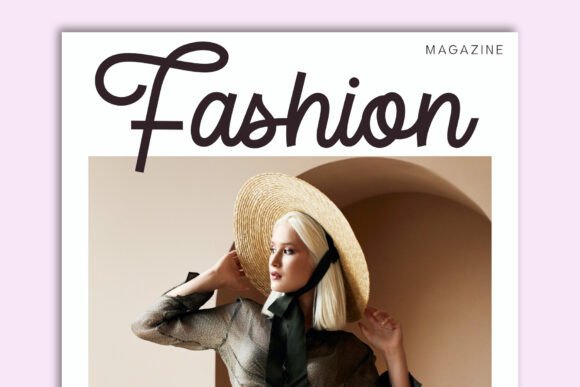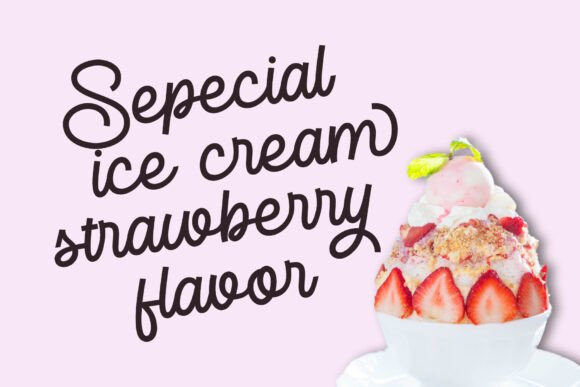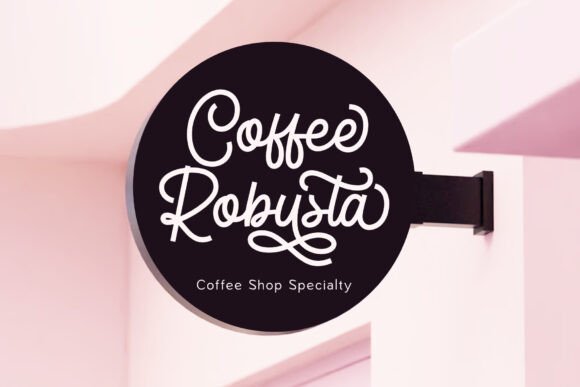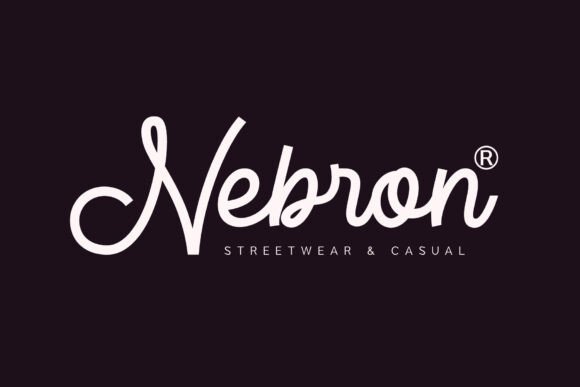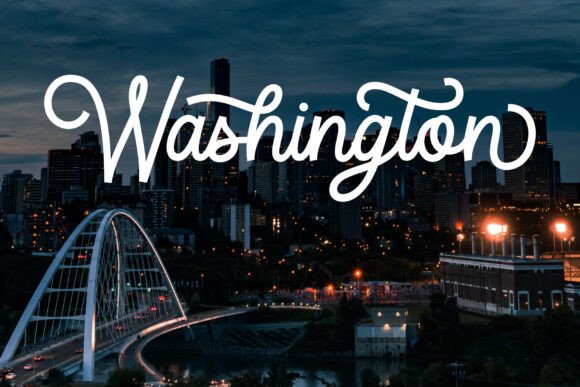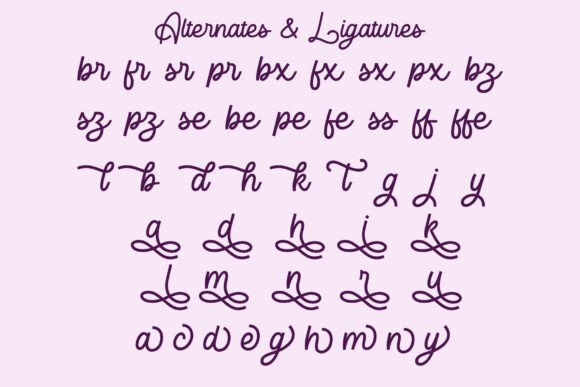
Introduction to Bualsey Font
Remember that moment when you’re brainstorming ideas for a new project, and the perfect font just clicks? For designers, finding that elusive font can make all the difference between a good design and a great one. If you’re on the hunt for a versatile and elegant script font, look no further than Bualsey Font. This stunning font is designed to be highly legible and perfect for a wide range of creative projects.
With its unique, handmade feel, Bualsey Font adds a personal touch to any design, making it an invaluable resource for designers. Whether you’re working on a logo design, branding, clothing design, signage, posters, or wedding invitations, Bualsey Font is sure to impress. Plus, with its high-quality design, you can rest assured that your projects will look professional and polished, even with a transparent background.
Key Features of Bualsey Font
- High-quality font with a unique, creative design perfect for various projects.
- Features a transparent background, allowing for easy customization and integration with other design elements.
- Compatible with a wide range of creative projects, including graphic design, digital art, and web design.
- Designed with a high resolution, making it suitable for print and digital applications.
- Includes a range of characters and glyphs, making it a versatile design resource for various languages and scripts.
Honest Review: Bualsey Font
I recently had the chance to work with the Bualsey Font, and I must say it’s been a great addition to my design resources. This free download is perfect for any creative project that requires a unique touch.
Here are some of the things that I think work well: ✨
- High quality: The font is incredibly detailed and has a lot of character, making it perfect for use in print or digital designs.
- Transparent background: This makes it easy to layer the font over other design elements without any hassle.
However, there are a few limitations that I’ve noticed: ⚠️
- Limited character set: While the font is great for use in headings and titles, it’s not ideal for body text due to the limited number of characters available.
Overall, I’m really impressed with the Bualsey Font. It’s a great design resource that’s perfect for adding a touch of personality to any creative project. I would definitely recommend it to anyone looking for a unique and high-quality font.
Tips for Getting the Most Out of Bualsey Font
For best results, use Bualsey Font in conjunction with other design resources to create a cohesive look. Experiment with different font sizes and styles to enhance your creative project.
Bualsey Font is ideal for various creative projects, including logos, business cards, and infographics. Its high-quality design makes it a popular choice for designers and artists.
Alternatives to Bualsey Font
Great Vibes Font is a modern, elegant script font ideal for creative projects that require a touch of sophistication. It’s free to download and offers a high-quality design suitable for business cards, wedding invitations, and other formal events.
When to use: Great Vibes Font is perfect for projects that demand a sense of refinement and luxury. It’s a great alternative to Bualsey Font for designers who want to add a touch of glamour to their designs.
Comparison: Great Vibes Font has a more elegant and refined look compared to Bualsey Font, making it suitable for formal events and business communications.
Pacifico Font is a beautiful, cursive script font that’s perfect for creative projects that require a relaxed and casual tone. It’s available for free download and features a transparent background, making it easy to use on any design project.
When to use: Pacifico Font is ideal for projects that require a laid-back and friendly tone, such as social media posts, blog articles, and product packaging.
Comparison: Pacifico Font has a more relaxed and casual look compared to Bualsey Font, making it suitable for projects that require a friendly and approachable tone.